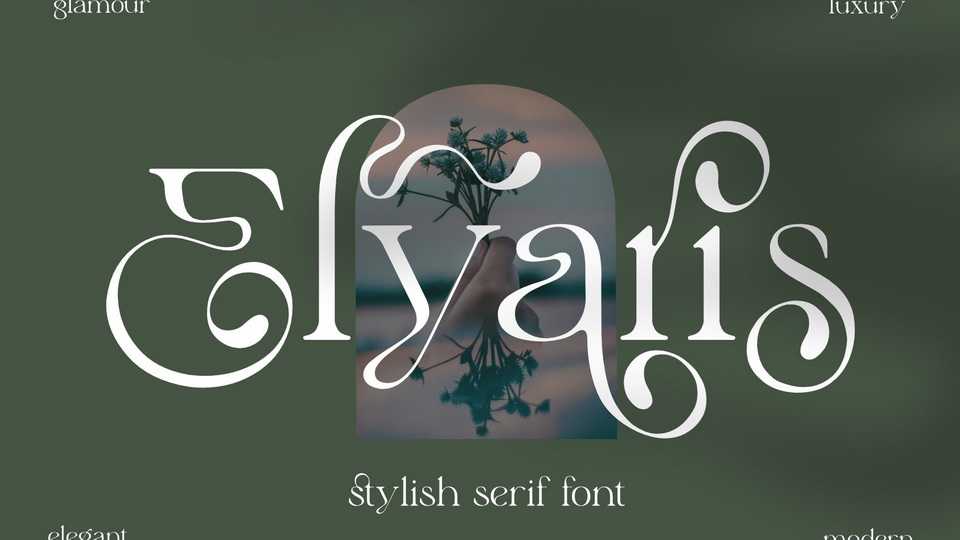
Download Elyaris font, a classic, elegant and unique typeface that has lots of flowing stylish alternates and also uses ligatures to connect letters smoothly. Elyaris is perfect for branding, logos, invitations, mastheads, and more.